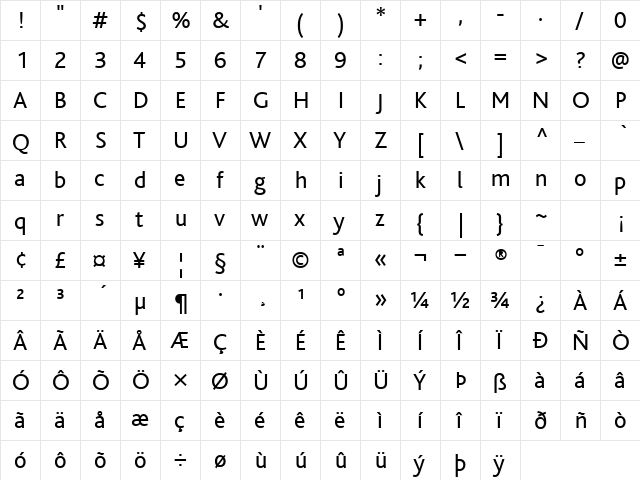
BlissRegular Font Preview
BlissRegular Regular
BlissRegular Font Details
Design Context for BlissRegular Typeface
BlissRegular is a composed and adaptable typeface that performs quietly and consistently across a wide range of design contexts.